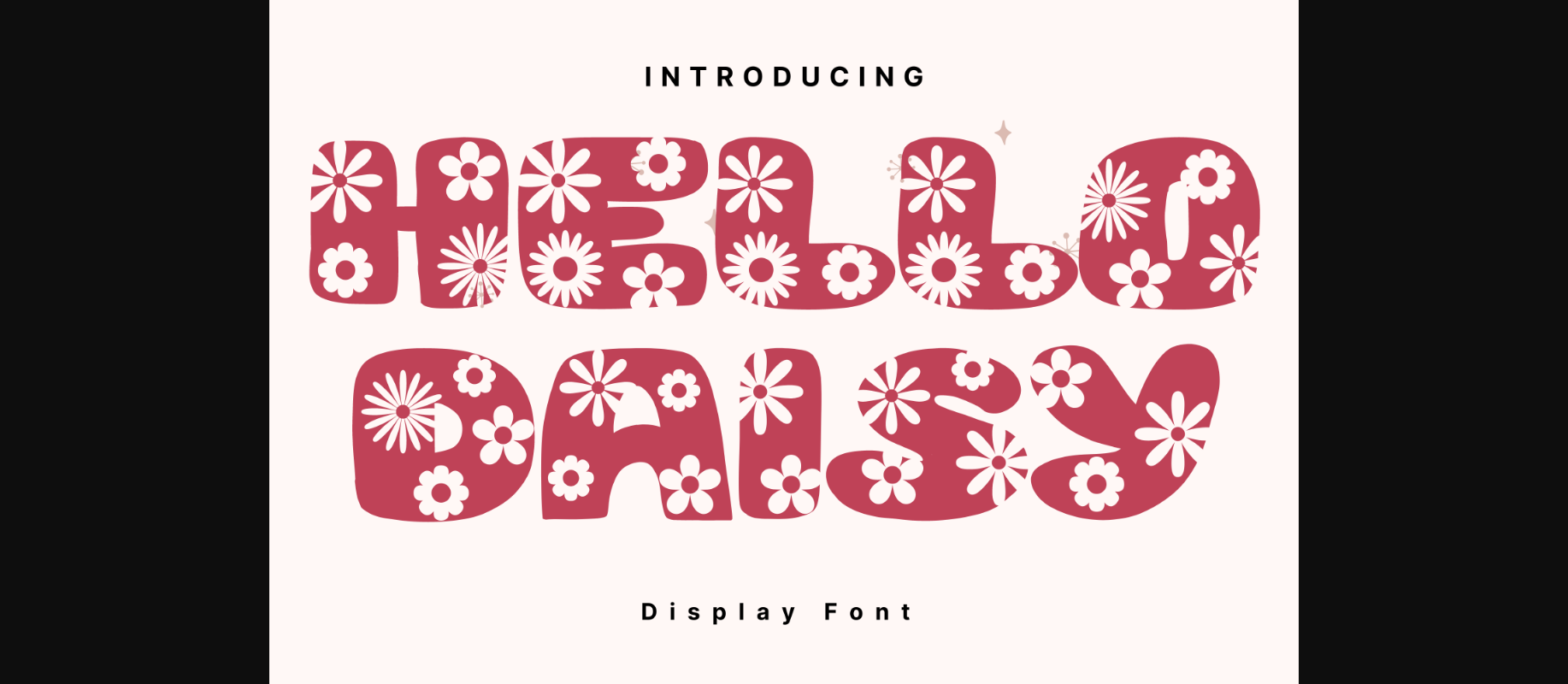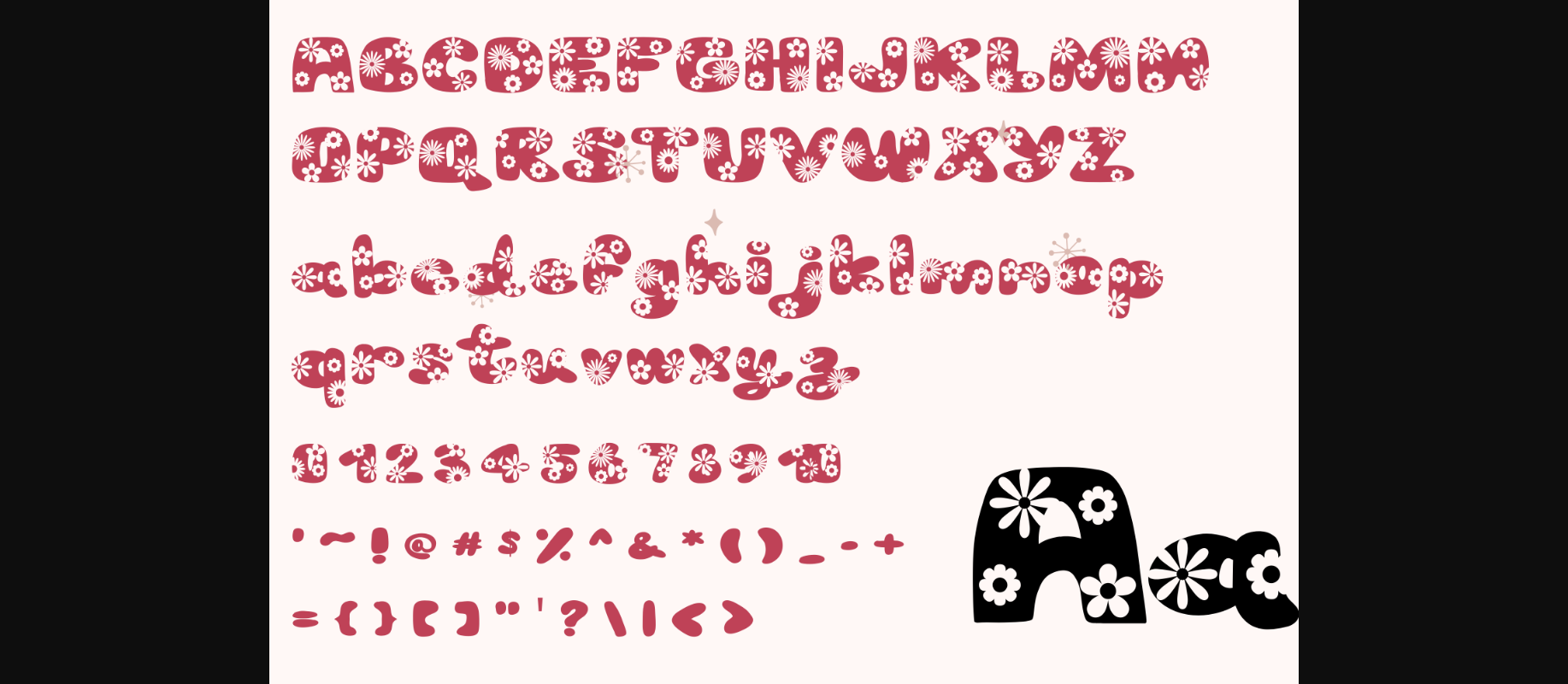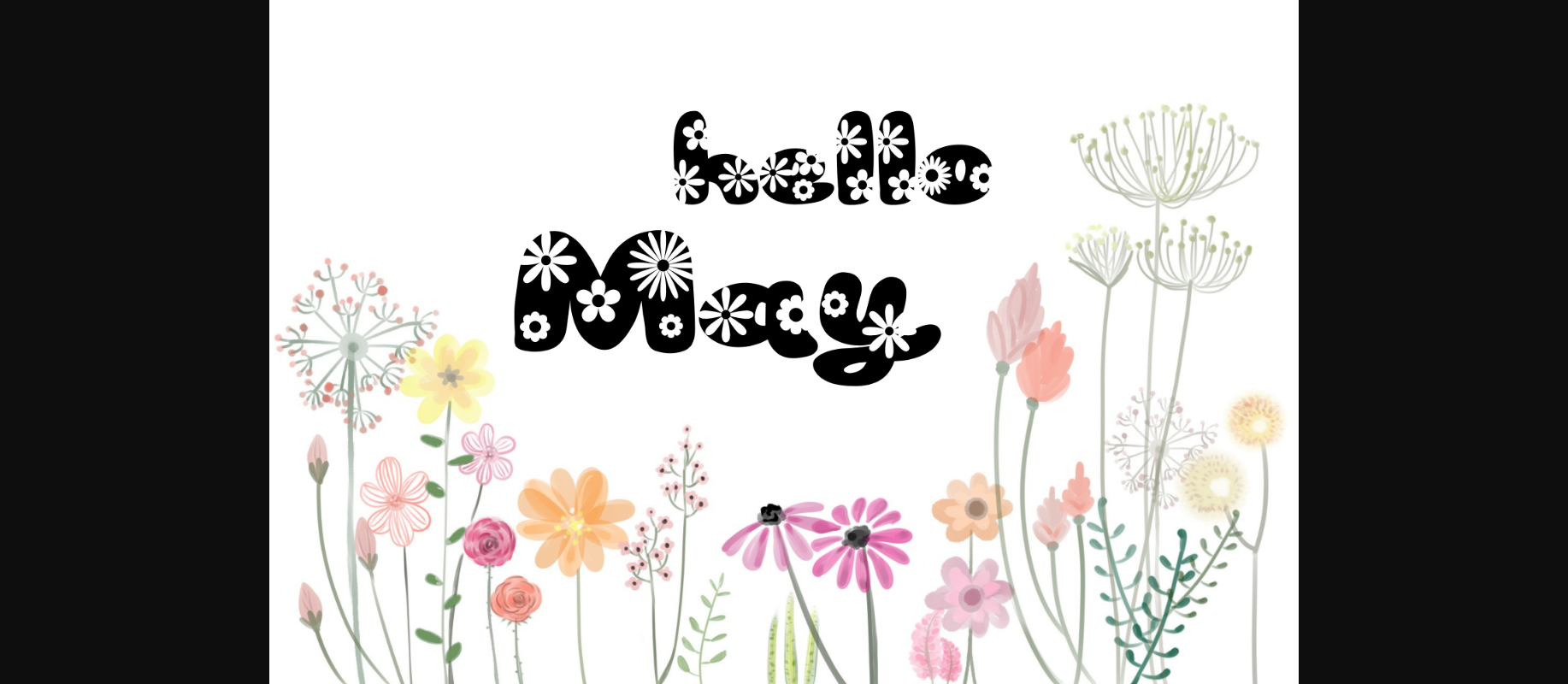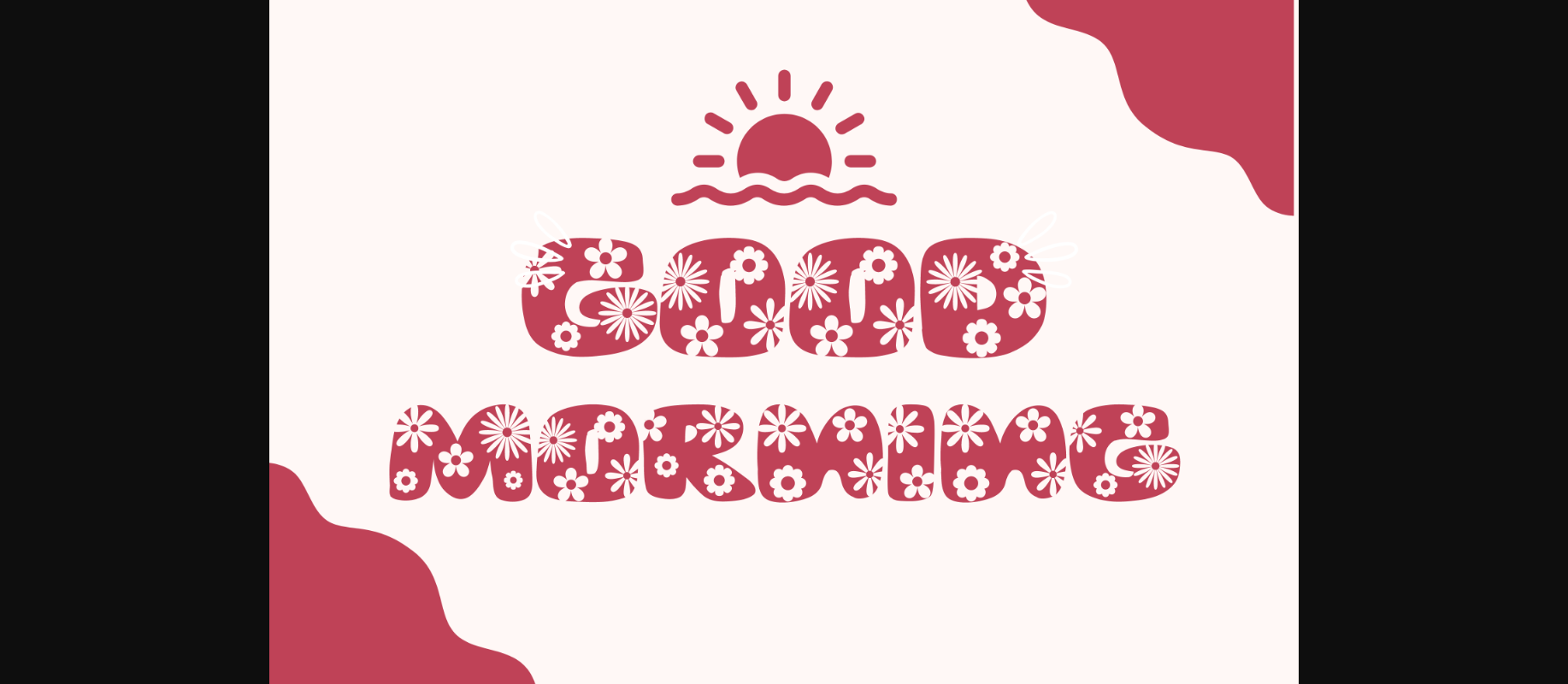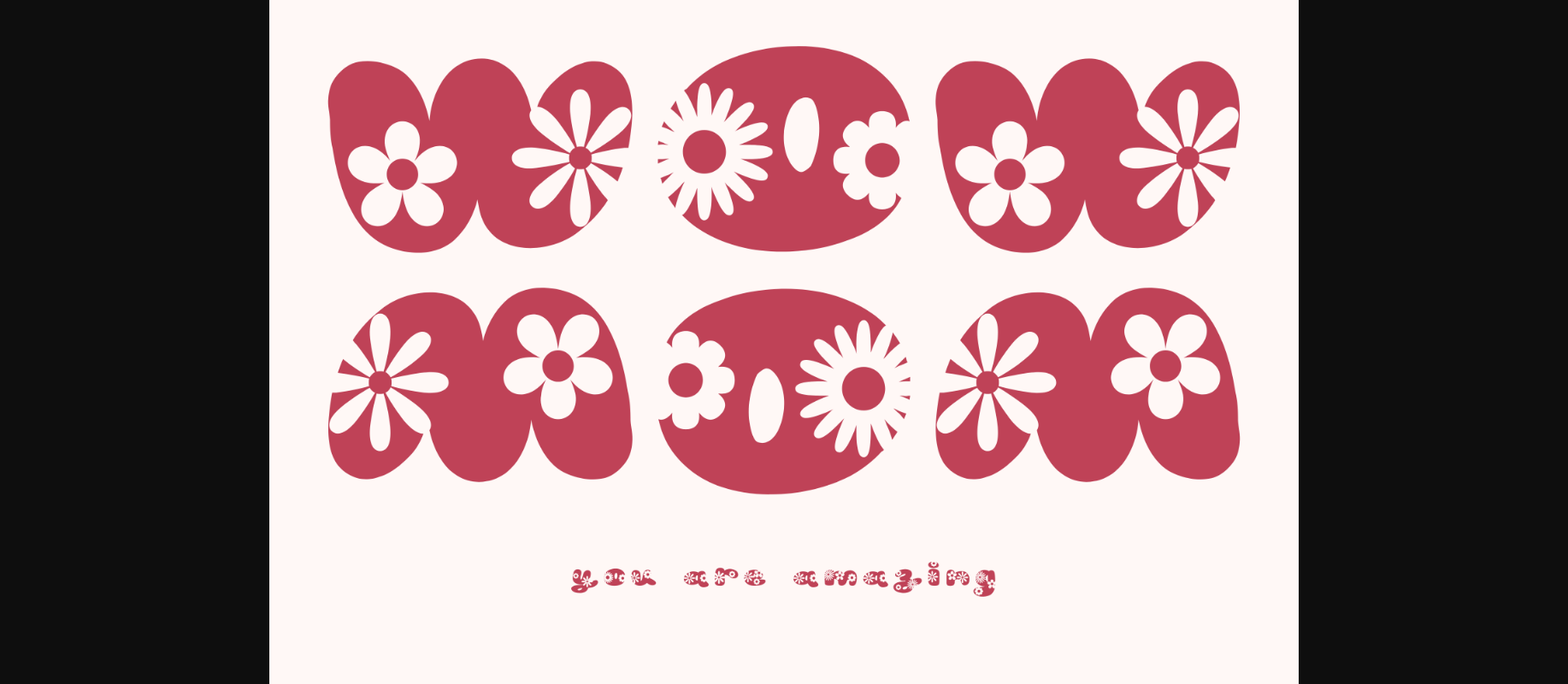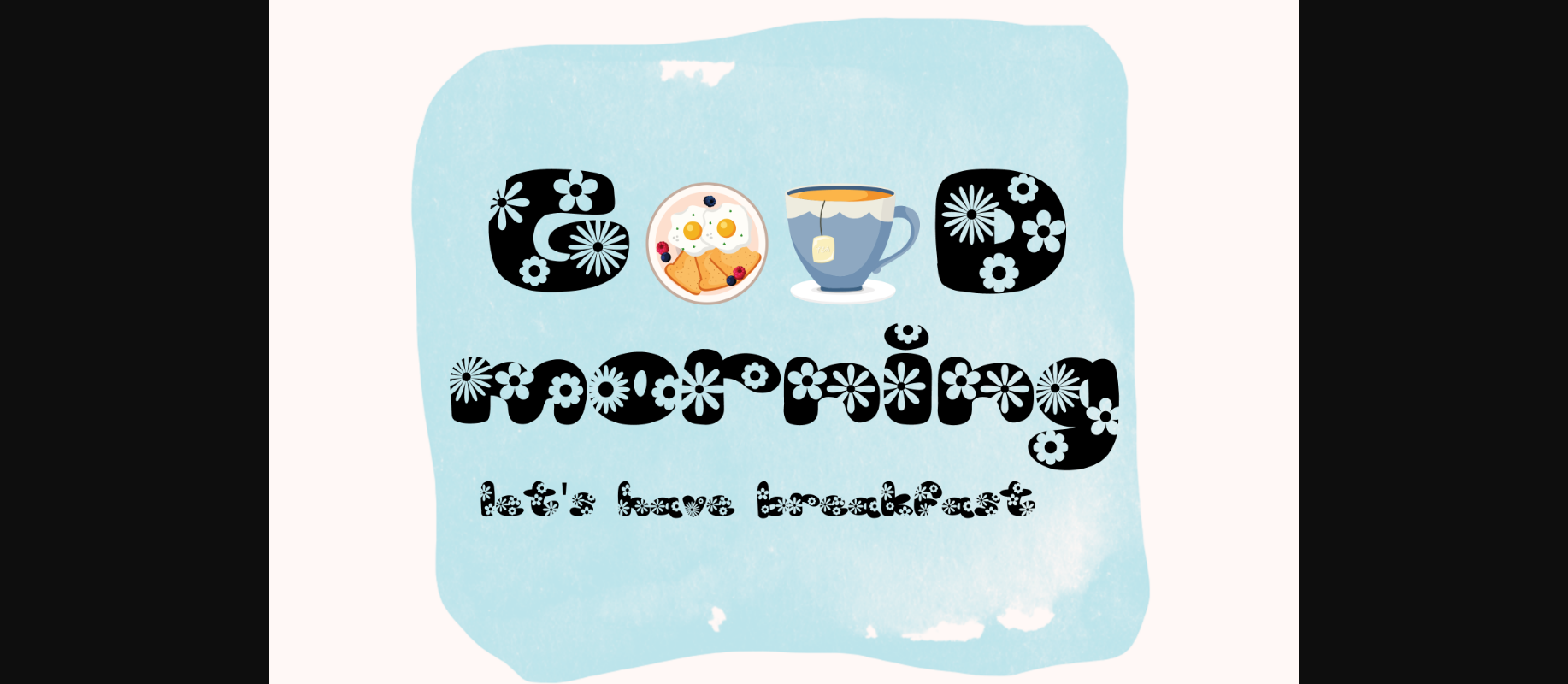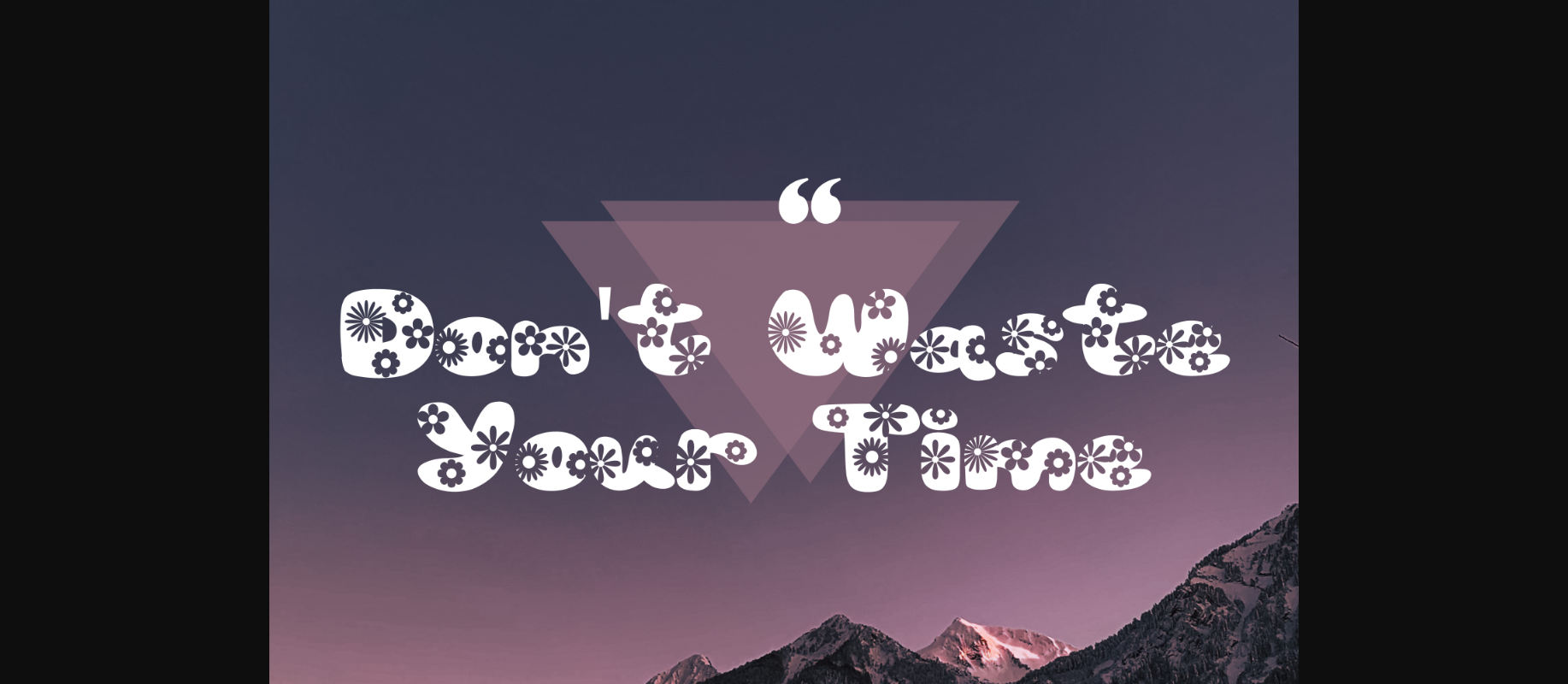
HomeDecorative FontsHello Daisy Font Decorative Fonts Hello Daisy Font FacebookXPinterestWhatsApp 1 of 9 ... Hello Daisy Font Poster 2... Hello Daisy Font Poster 3... Hello Daisy Font Poster 4... Hello Daisy Font Poster 5... Hello Daisy Font Poster 6... Hello Daisy Font Poster 7... Hello Daisy Font Poster 8... Hello Daisy Font Poster 9... About Hello Daisy Font Hello Daisy is a whimsical and fun decorative font. It can easily be matched to an incredibly large set of projects, so add it to your creative ideas and notice how it makes them stand out! DOWNLOAD NOW People also explored Delinhas Font Winterberry Sweet Dream Font Frances Font Pluston Font Bastonica Font Eroren Font Nighiri Font Cellagre Font 284 0 TagsHello Daisy Font Previous articleTree Roots FontNext articleApi-digital Font LEAVE A REPLY Cancel reply Comment: Please enter your comment! Name:* Please enter your name here Email:* You have entered an incorrect email address! Please enter your email address here Website: Save my name, email, and website in this browser for the next time I comment. Personal Use Free Pretender Personal Use Free Read more about this font Fadhista Personal Use Free Read more about this font Rasiday Personal Use Free Read more about this font Carved Wood Personal Use Free Read more about this font BLOG How to Install and Use Fonts on Windows, macOS, and Web Projects How to Install and Use Fonts on Windows, macOS, and Web Projects Fonts are a crucial part of design and branding. Whether you’re designing a... To increase your work productivity, choose the most readable fonts. 5 Fonts That Will Dominate Design Trends in 2026 Free vs Paid Fonts: Why Investing in Premium Fonts Is Worth It